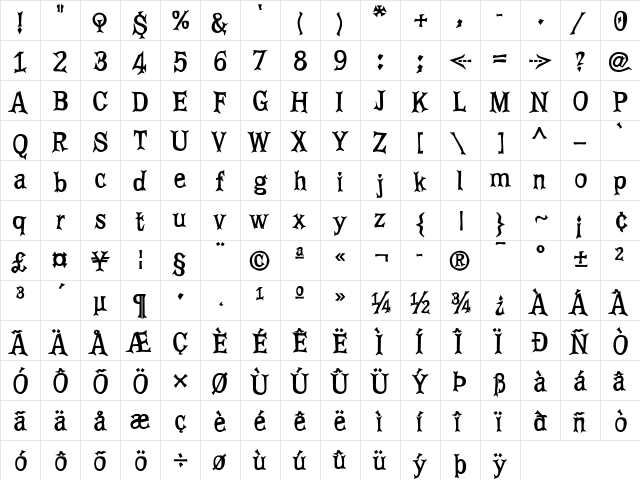
PriskaSerif Bold
Design Context for PriskaSerif Typeface
PriskaSerif carries the refined structure of traditional serif typography, with bracketed terminals and considered proportions that communicate credibility and craft. Its bold stroke weight gives it real presence on the page.
Pro Tip: Set PriskaSerif with slightly loose tracking in headlines to let each letterform's detail read clearly at display sizes.